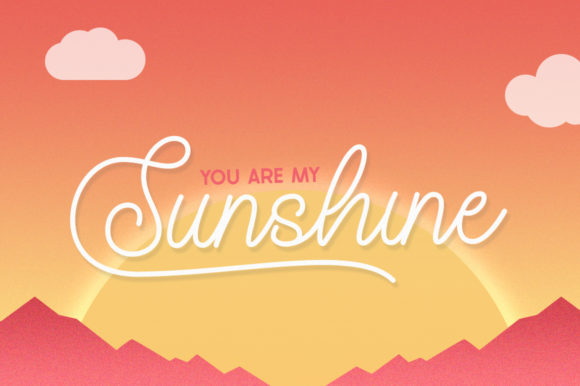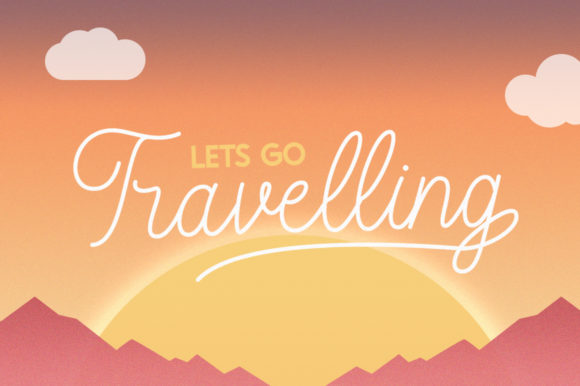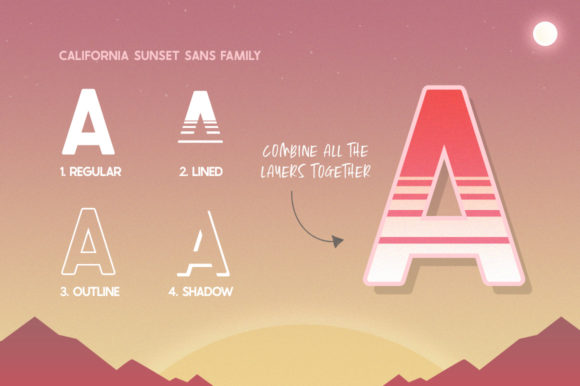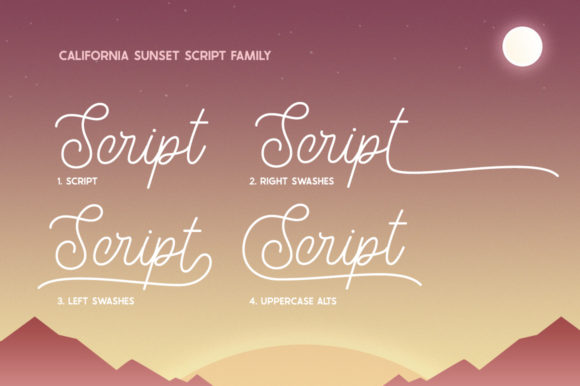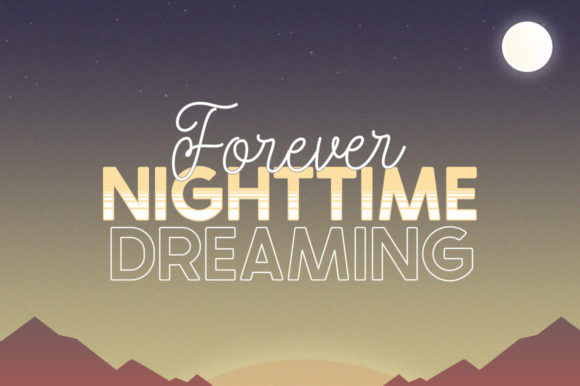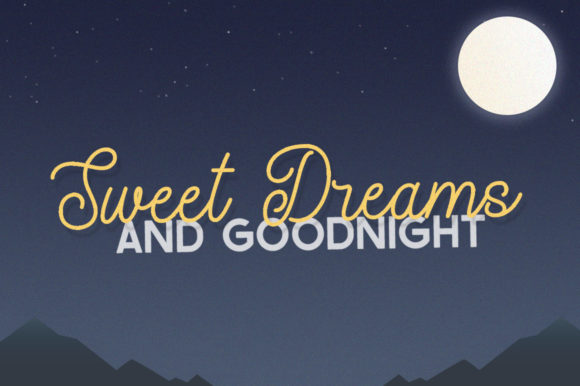
California Sunset Font
About California Sunset Font
California Sunset duo is a match made in heaven. Whether you’re looking for fonts for Instagram or calligraphy scripts for DIY projects, this handwritten font will turn any creative idea into a true piece of art!